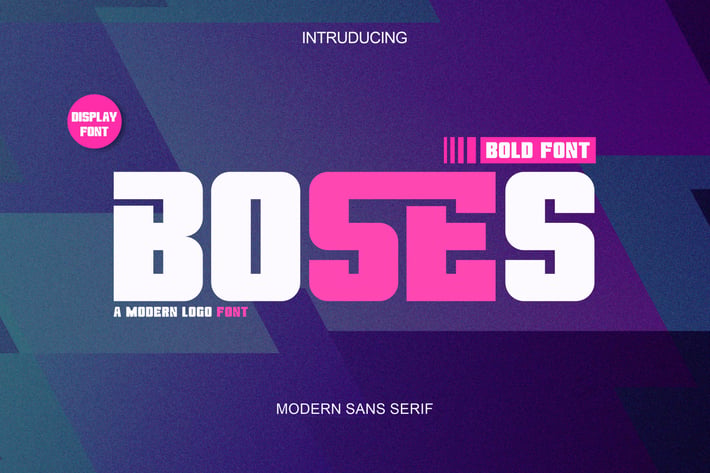
Boses Font Display Logotype
Introducing our new product Boses Font Display Logotype
Boses Font Display Logotype & Logo Font is and elegant and authentic display font.